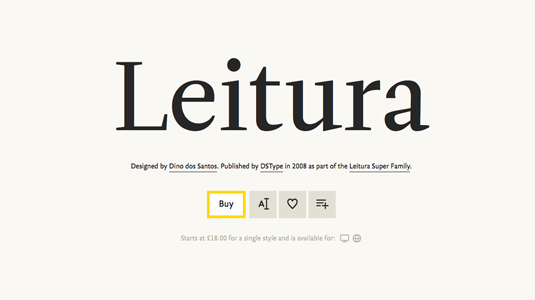
Greatest fonts countdown: 55 - Leitura
55. Leitura
- Dino dos Santos, 2007
Leitura is an elegant and versatile type system designed by Dino dos Santos and published in 2007 by DSType Foundry. His original intention was to create a set of typefaces that would be invisible to the reader, enabling the content to step to the fore. What he achieved was an incredibly varied and detailed series of fonts and, as an OpenType release, Leitura has all sorts of features.
There are News and Headline fonts, as well as Roman and Sans, plus Symbols and a Display version. Whether you need delicacy or clout, Leitura presents an entire system for textual communication.